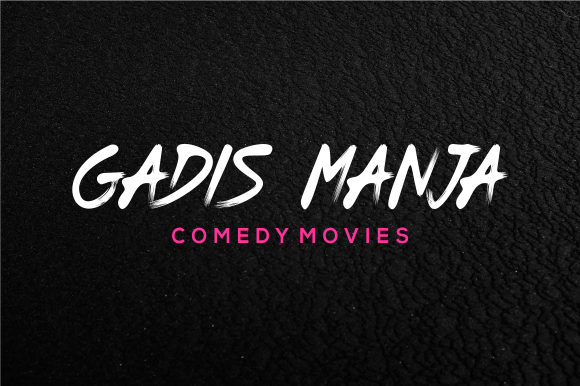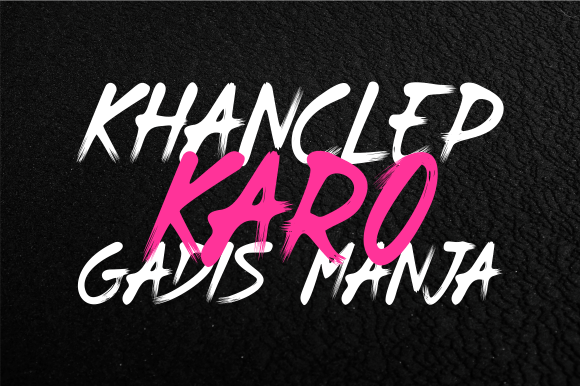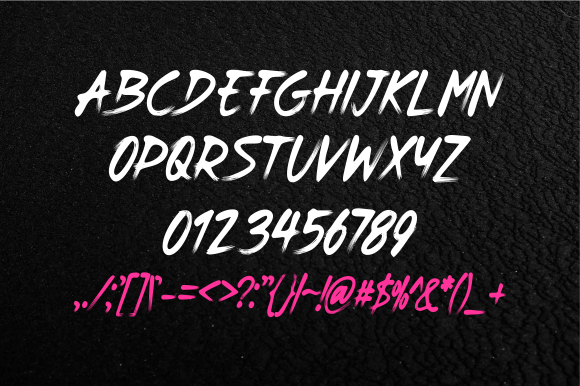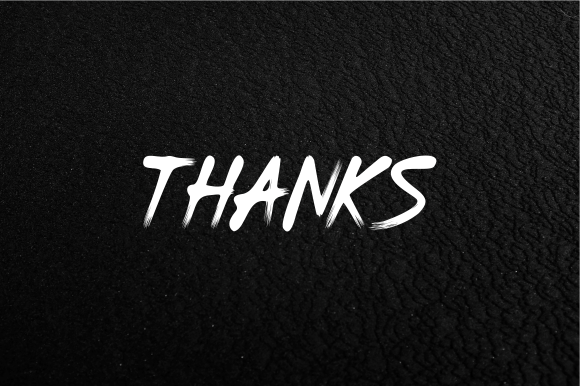
Introduction to Khanclep Font
Khanclep is a fun and casual handwritten font.
Whether you use it for cartoon-related designs, children’s games, or just any creation that requires a lovely touch, this font will be an amazing choice .
Key Features of Khanclep Font
Khanclep Font offers exceptional quality and versatility, making it a valuable addition to your design toolkit. Whether you’re creating for personal projects or commercial use, Khanclep Font delivers professional results.